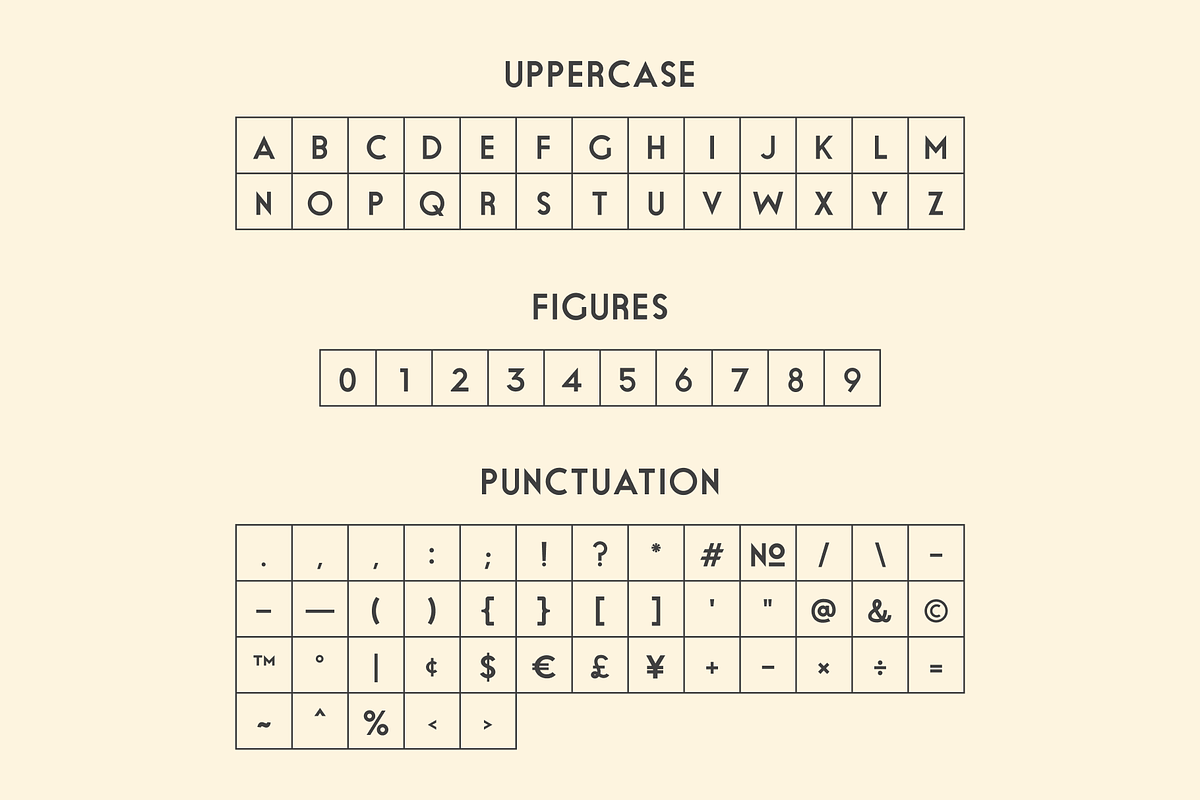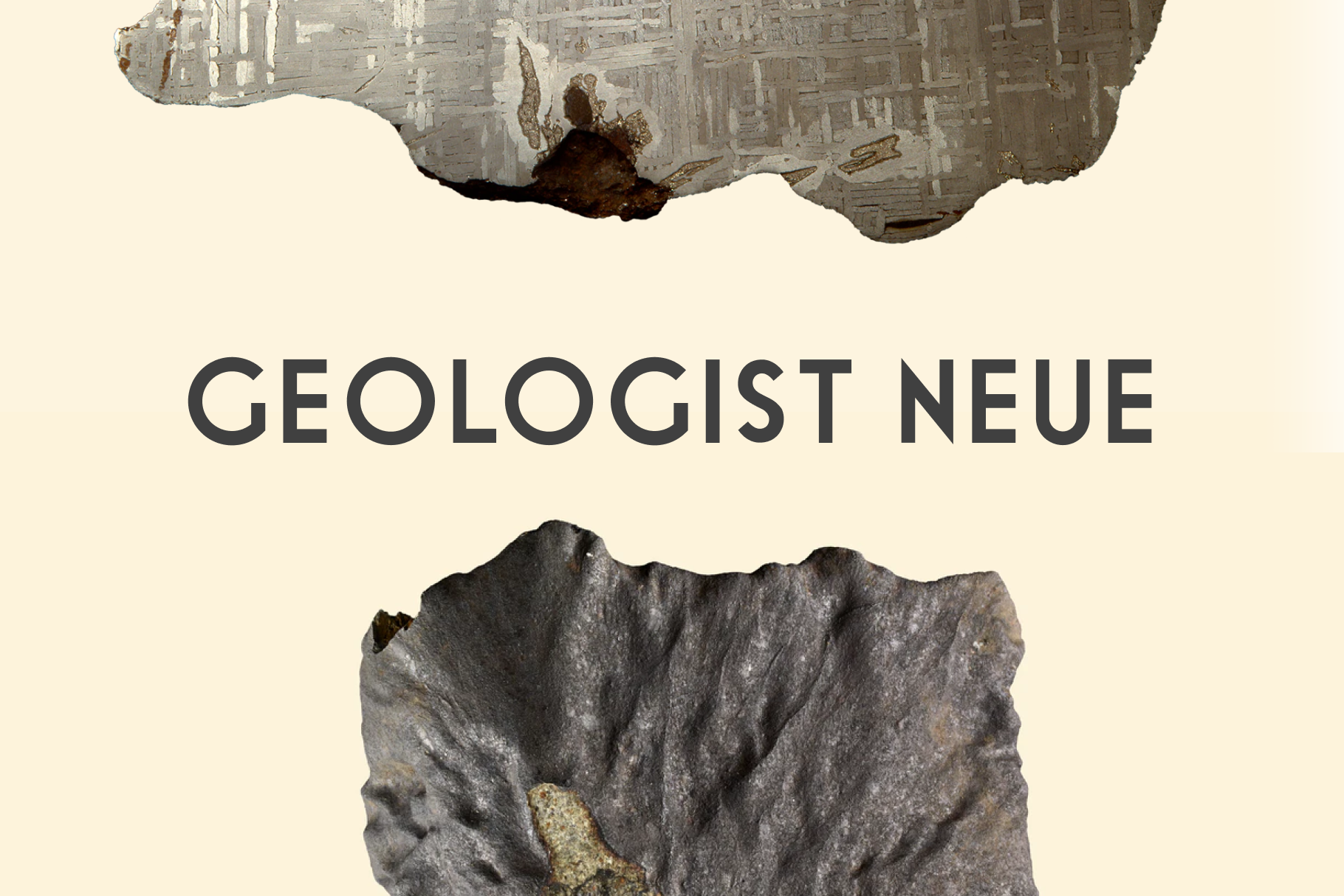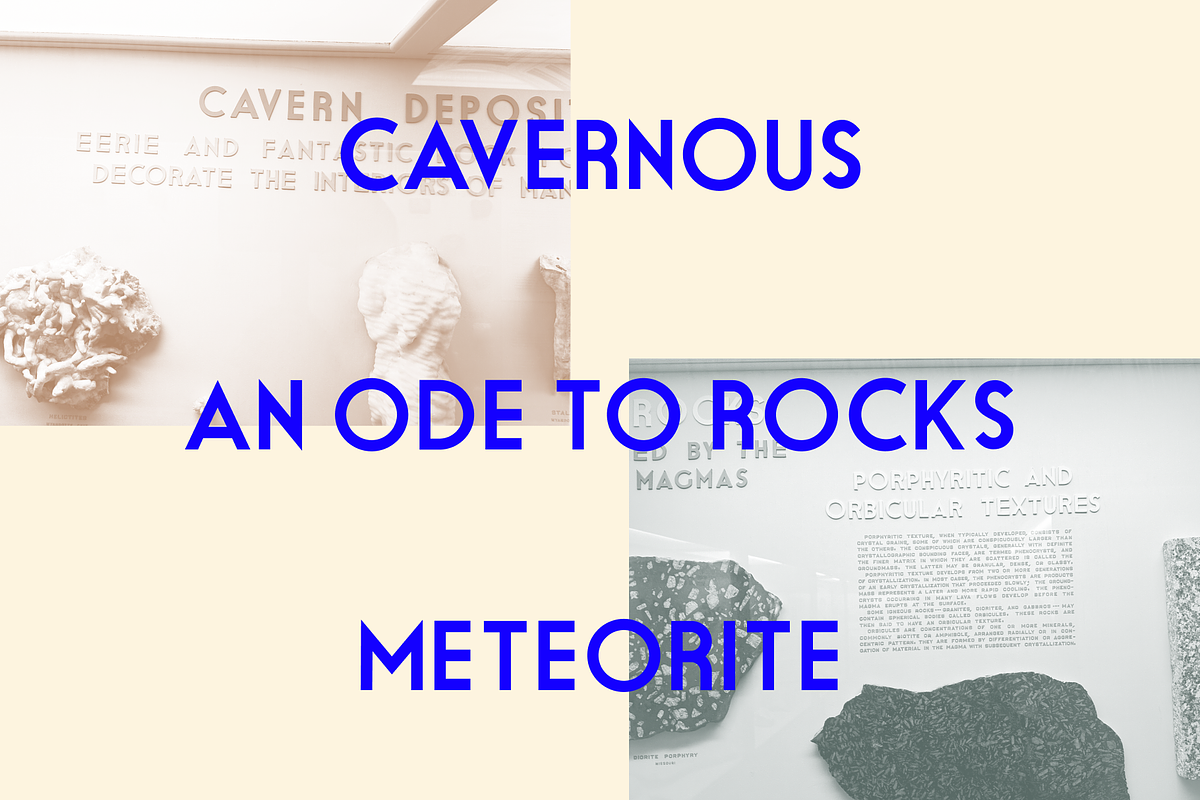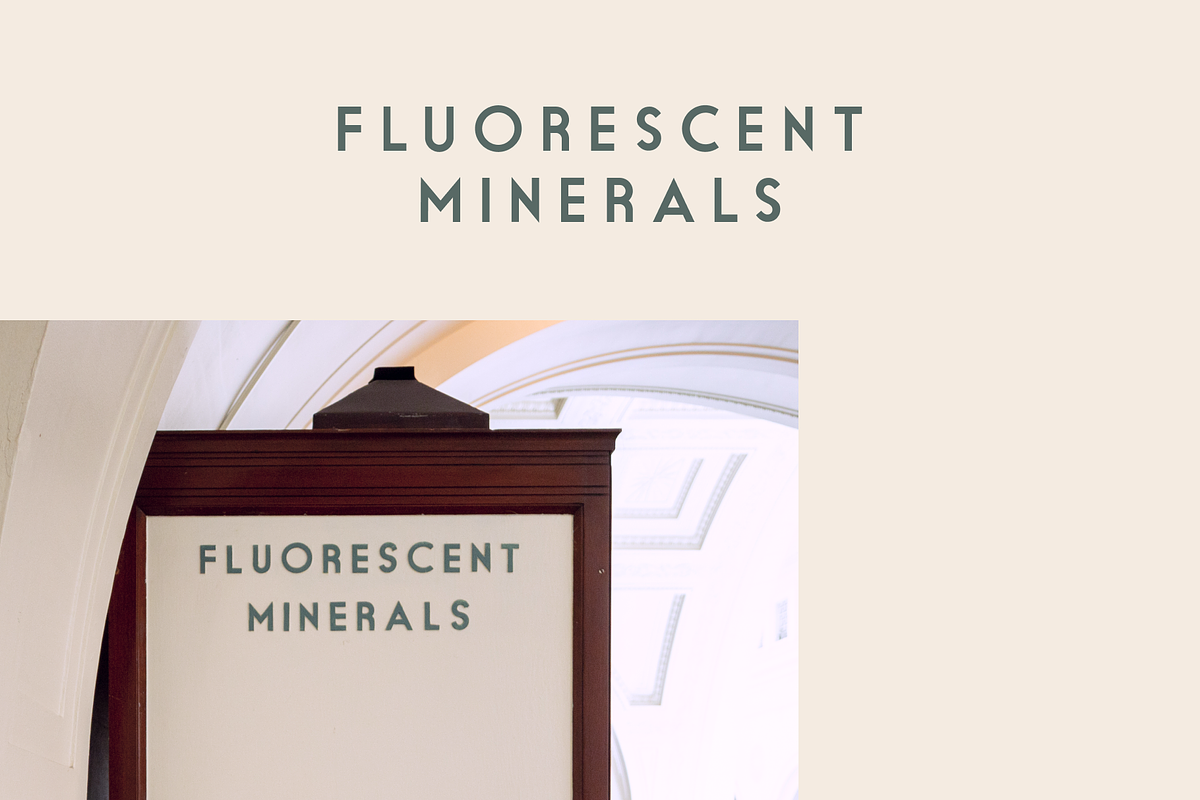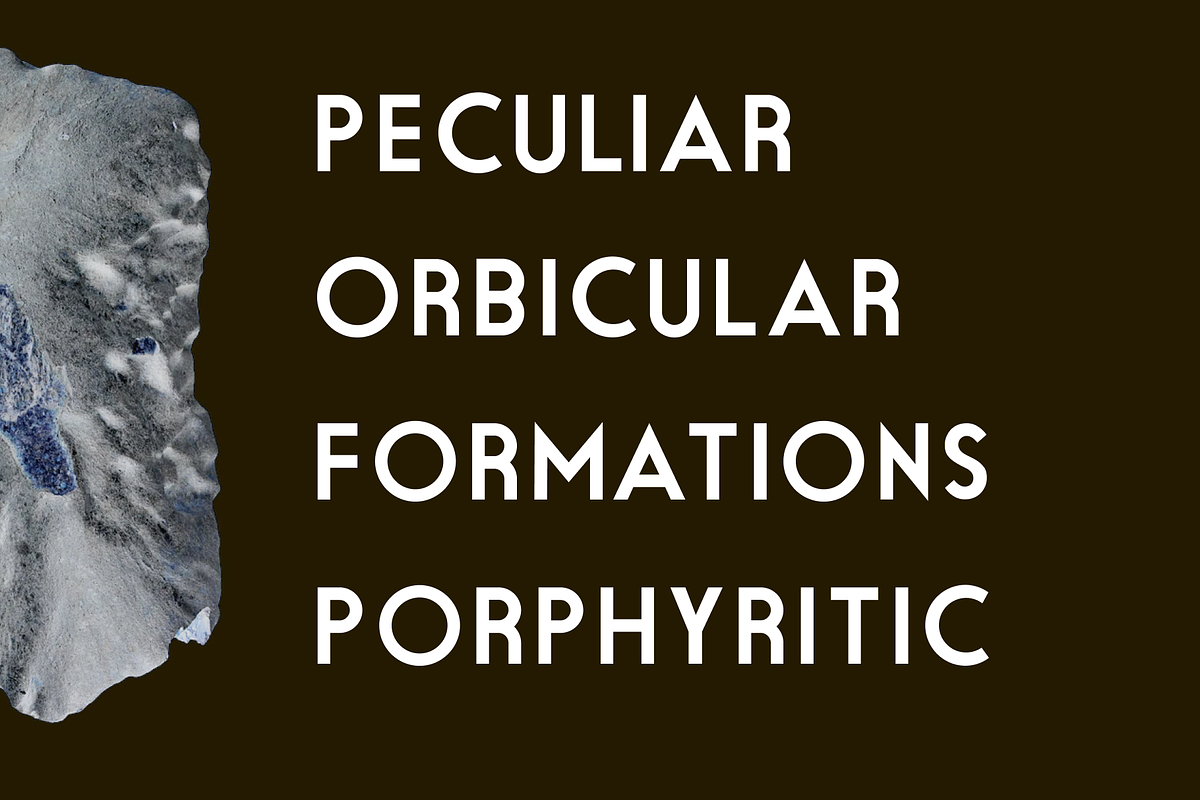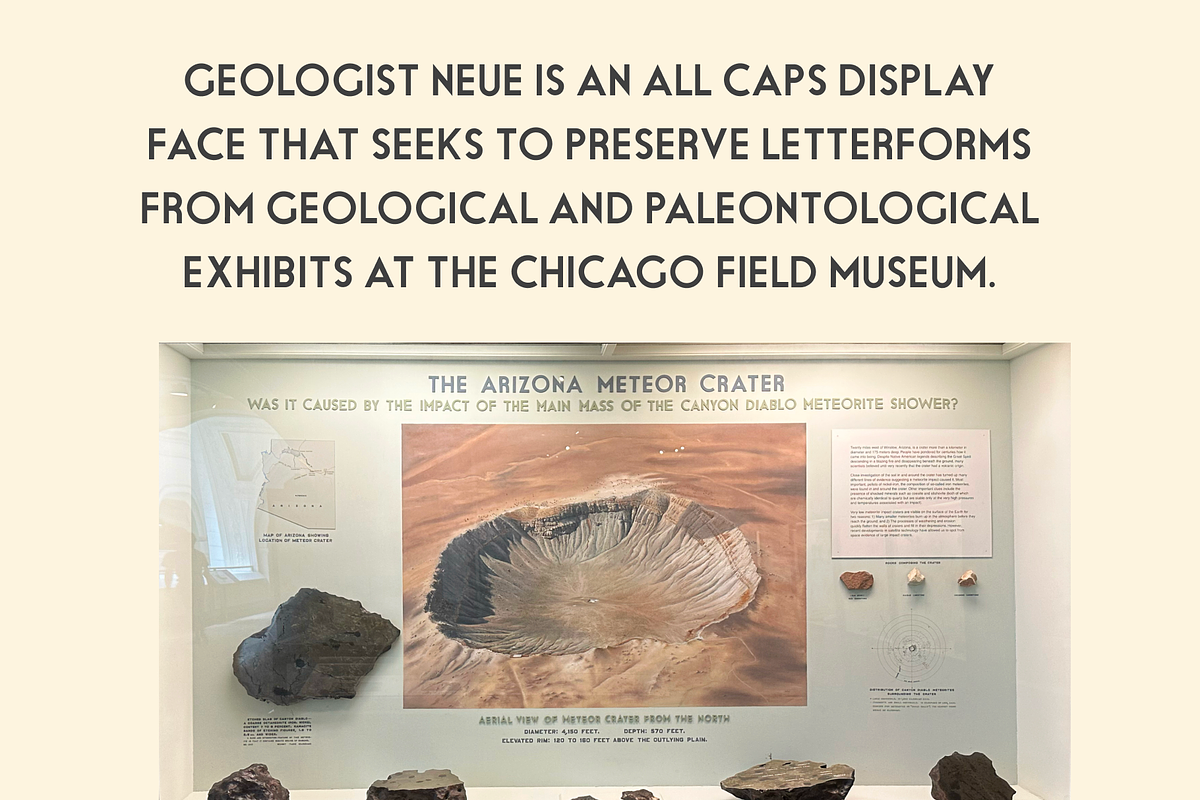
Geologist Neue - Museum Display Font
Geologist Neue is an all caps display face that seeks to preserve letterforms from Geological and paleontological exhibits at the Chicago Field Museum. It has caps letterforms and select symbols included.
More about the typeface: The field museum geology and meteorite exhibits feature wood and particleboard cut letterforms that were hand-arranged on the displays, when drawing Geologist Neue, I corrected many inconsistent heights and widths to produce what I believe was the original intention. Geologist looks great by default, but it gains more magnitude when tracked wide and long.